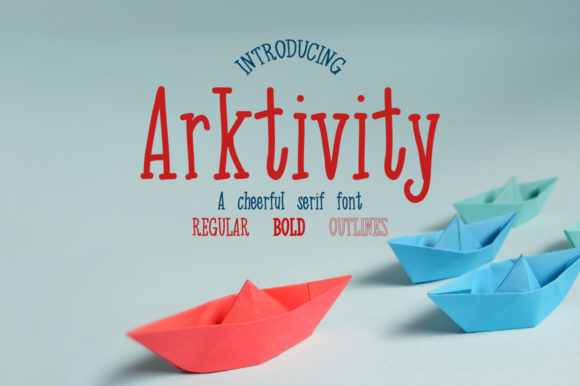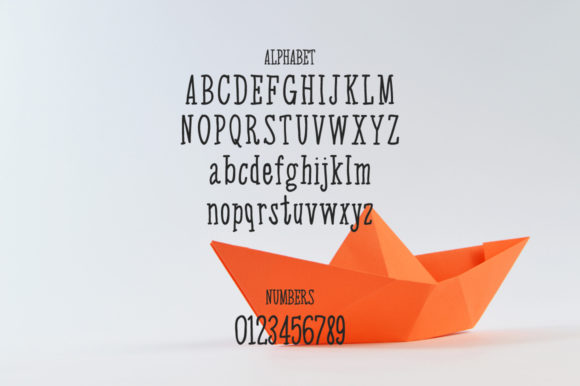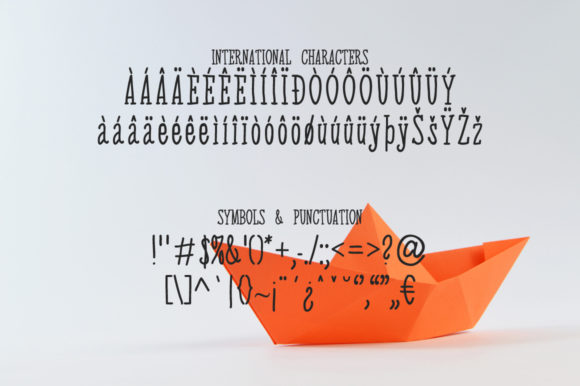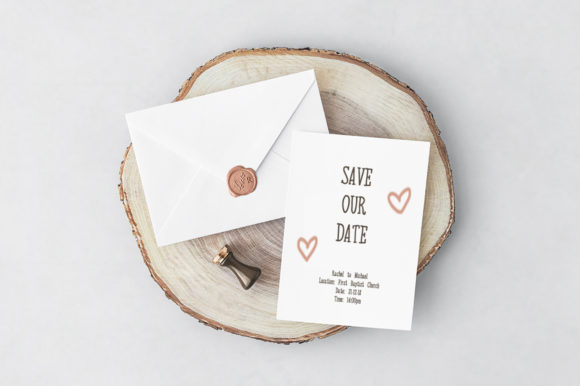
Arkitivity Font
This set includes the handwritten Arktivity serif font in three styles: regular, bold and outlined. It can be used for all your design projects requiring that hand-lettered serif touch including business cards, invitations, stationery, blogs, logos and much more.